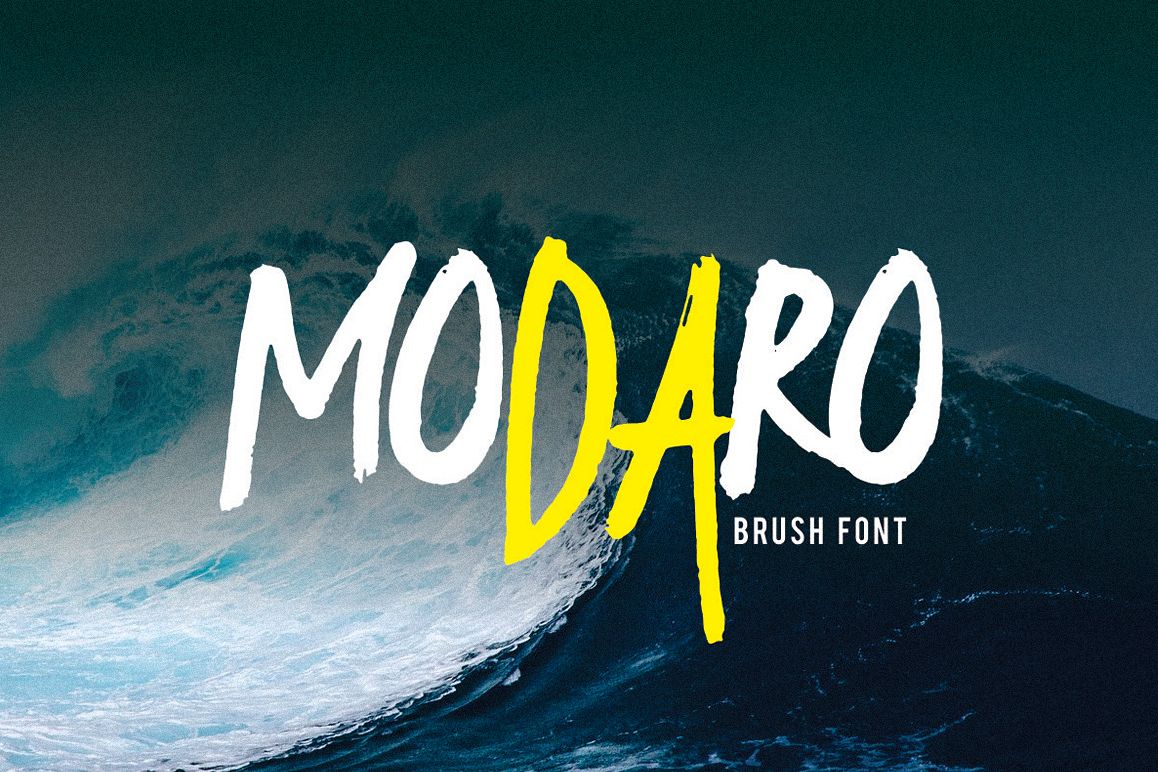
Modaro Bold Handmade Brush Font
Modaro is a hand-drawn brush font with rough and bold letters. It's great for logos, branding, print projects and any attention drawing headline.